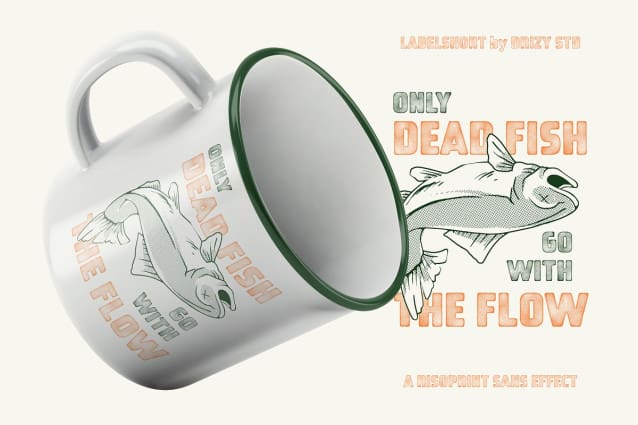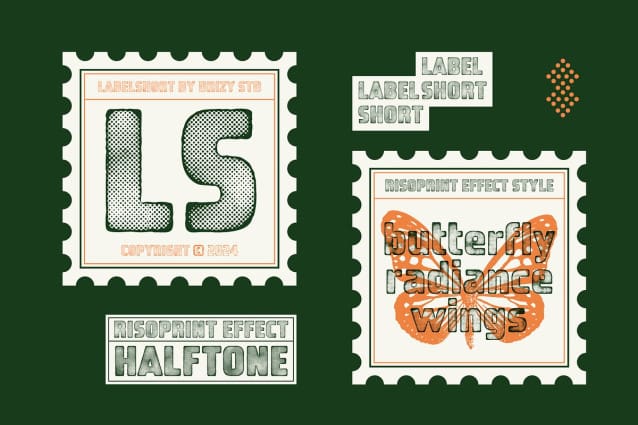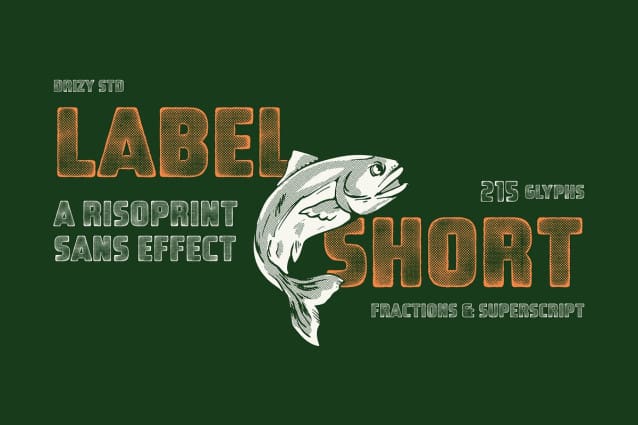
Labelshort Font
Labelshort Font is a distinctive typeface that combines the vintage charm of rubber stamp imprints with the modern clarity of sans-serif fonts. Its textured appearance mimics the unevenness and character of traditional rubber stamping, lending an authentic, handcrafted feel to any design. With its clean lines and slightly worn edges, this font evokes a sense of nostalgia while maintaining readability and versatility. Labelshort Font adds a touch of retro flair and individuality to your creations.